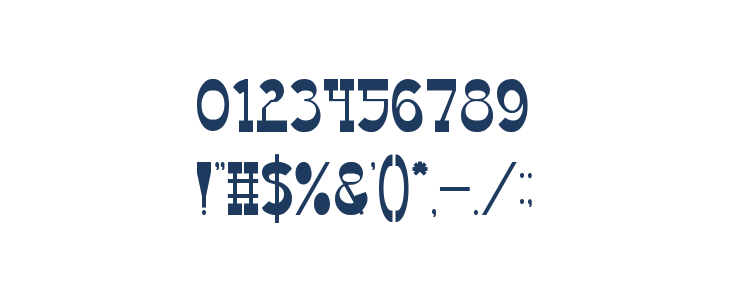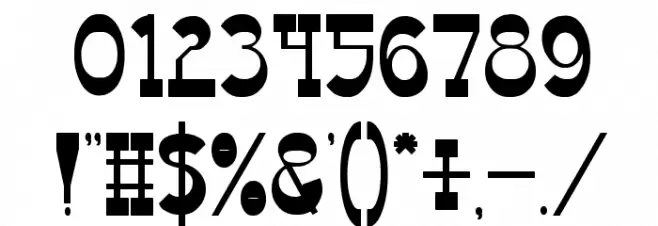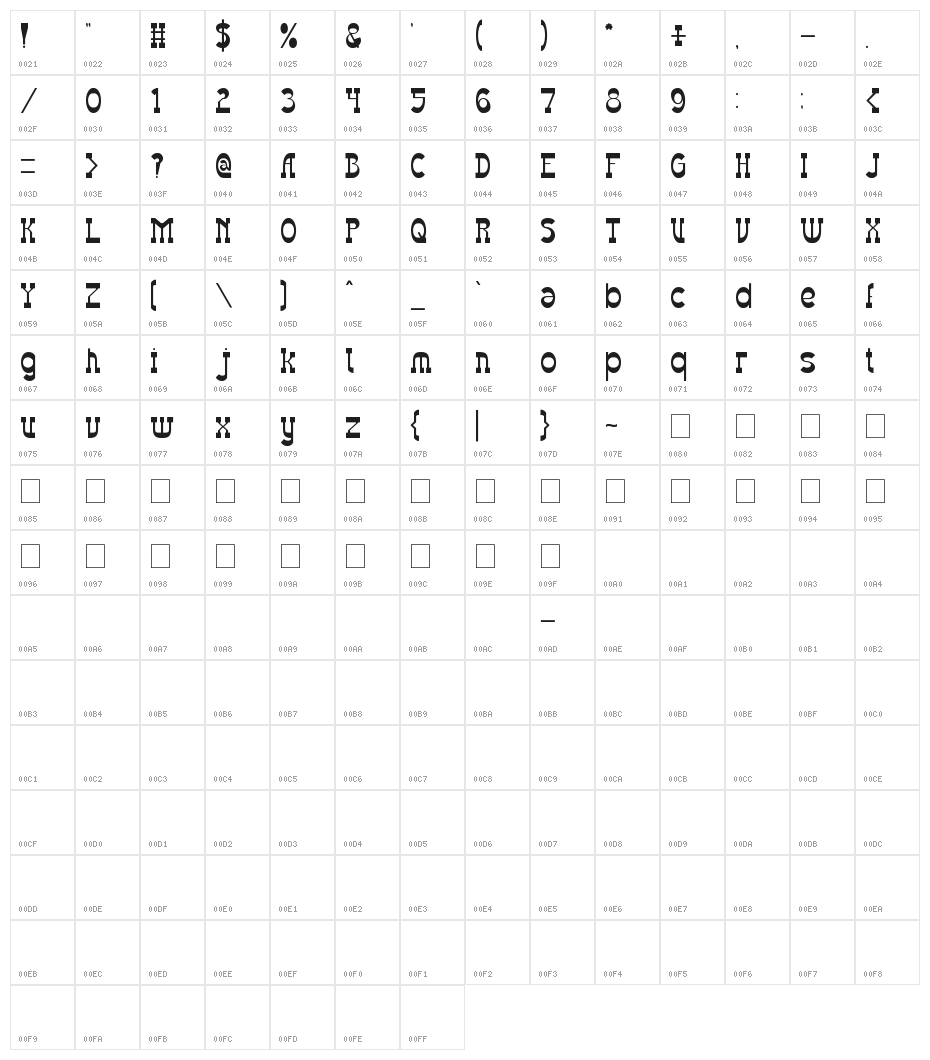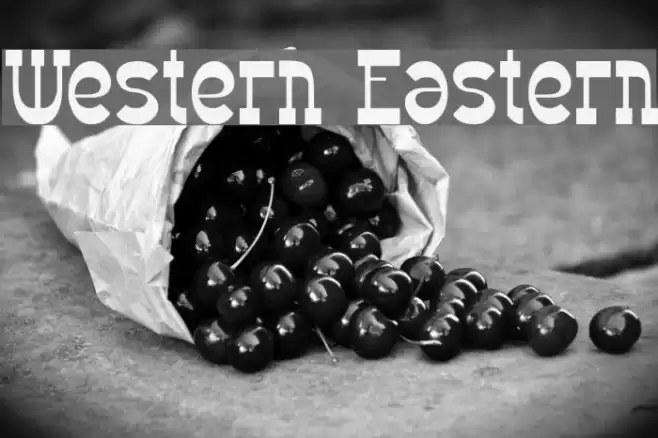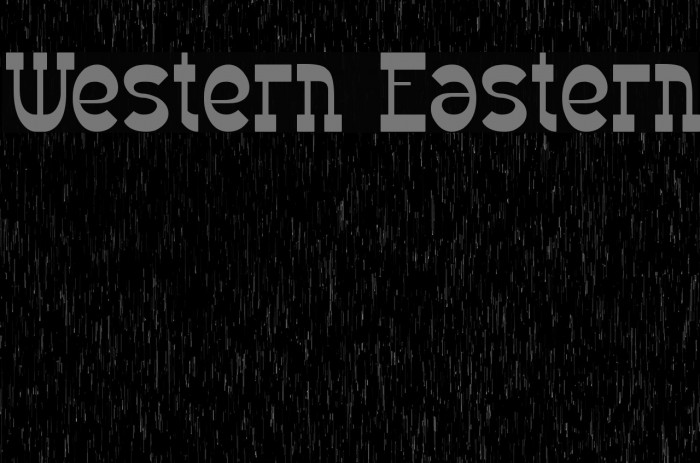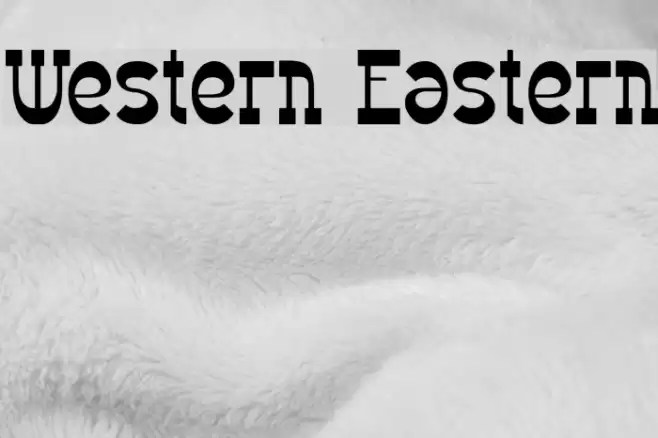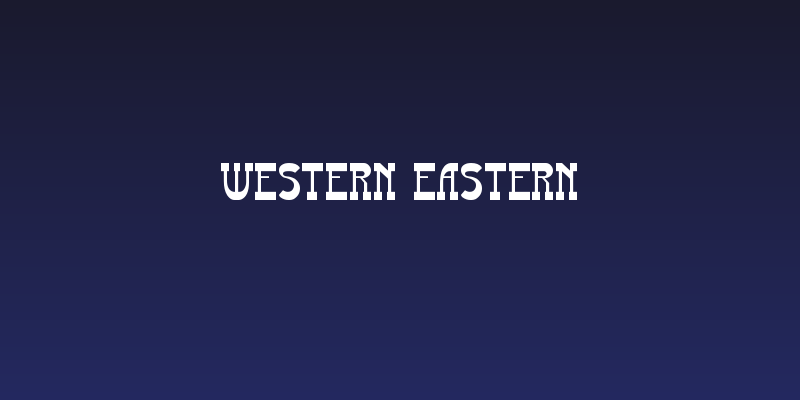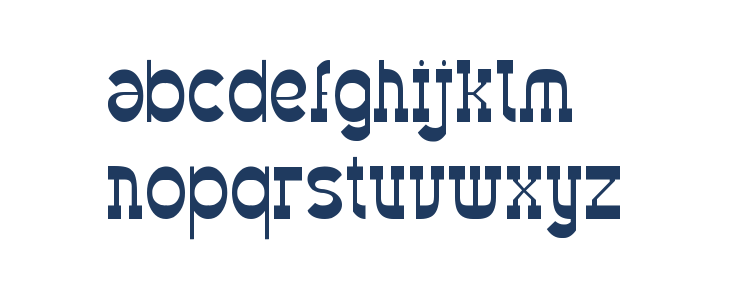
Western Eastern Font
Western Eastern Description
This font features a bold and distinctive style with strong geometric shapes and a slab serif design. The uppercase letters are characterized by their wide, blocky appearance, while the lowercase letters maintain a consistent style with slightly rounded edges. The numerals are equally bold, ensuring visibility and impact. Special characters are designed to match the overall aesthetic, providing a cohesive look across all glyphs. The font's unique blend of Western and Eastern influences gives it a versatile and eye-catching appeal, suitable for various design contexts.